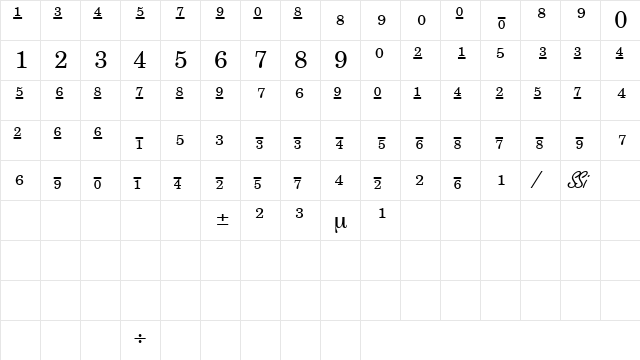
CenturySchoolbkRepriseFracSSK Regular
Design Context for CenturySchoolbkRepriseFracSSK Typeface
CenturySchoolbkRepriseFracSSK takes a measured approach to typography — its balanced proportions and neutral character make it a reliable workhorse for both digital and print work.